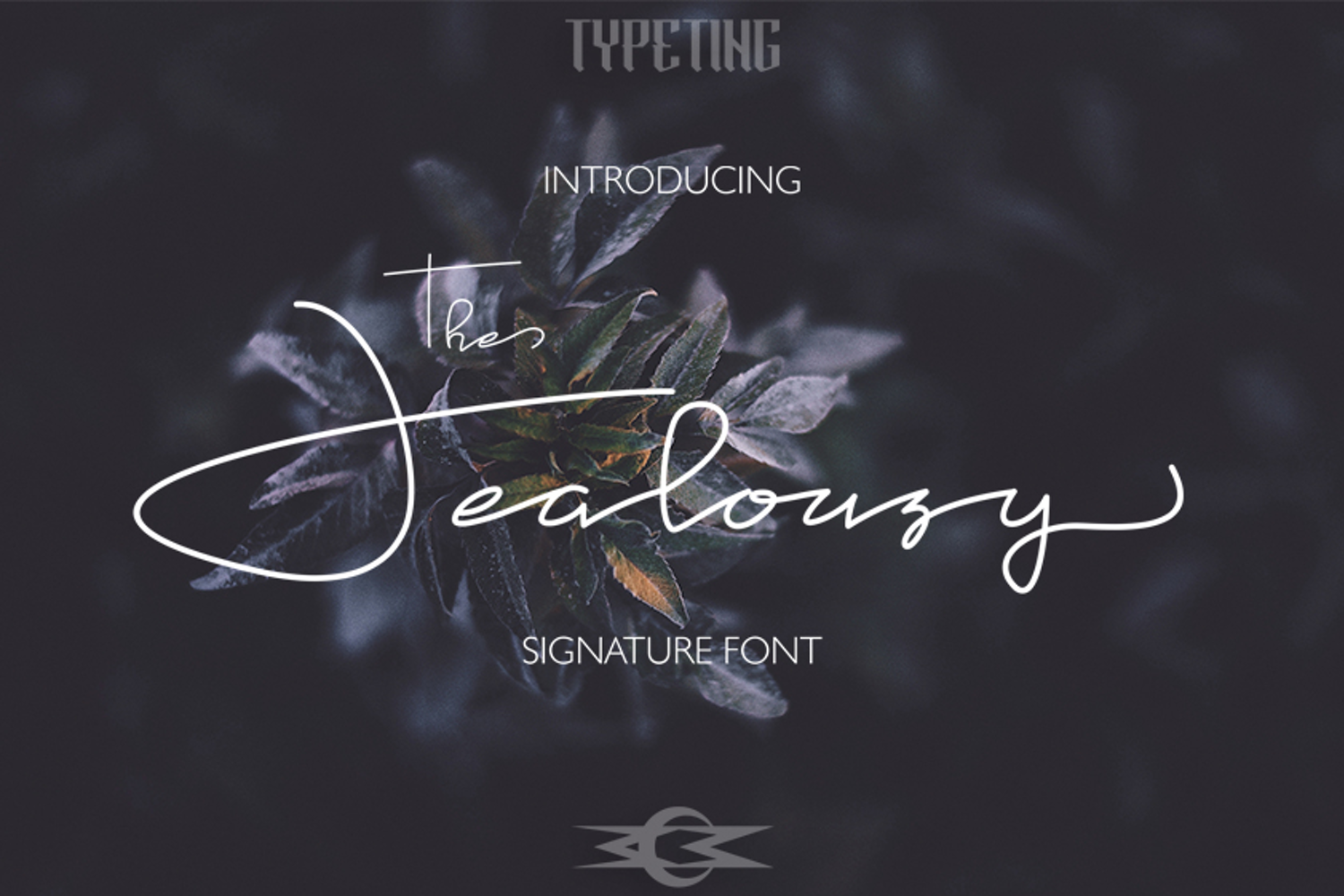
Jealousy
The Jealousy is a lovely signature script. It has an elegant handwritten style which makes it perfect for adding a luxurious feel to your designs.
It’s perfectly suited for signatures, book covers, stationery, branding designs and more.